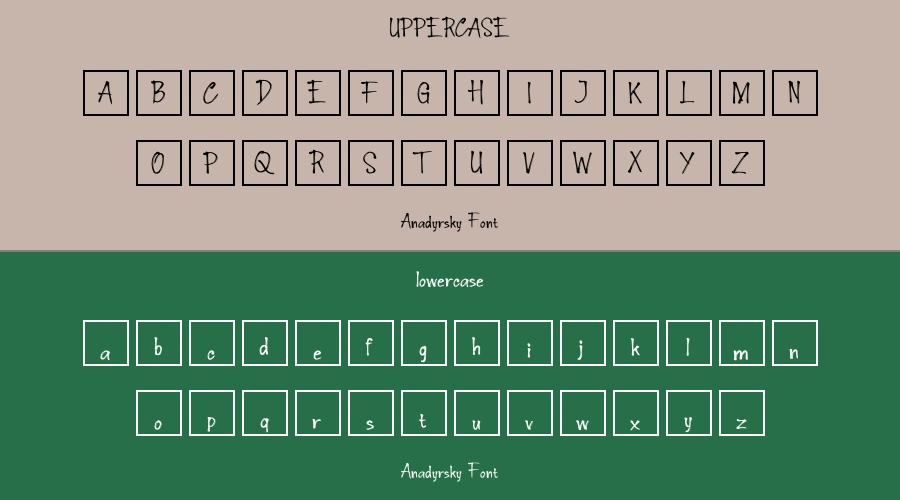
About Anadyrsky Font
Anadyrsky Font represents a sophisticated approach to type design, balancing humanist proportions with originality. Perfect for medical texts, this font family showcases impressive consistency and brand alignment throughout its character set. Designers appreciate its versatility and reliability.
Designers will appreciate nuanced touches including clean lines and beginning forms, adding sophistication to any project. These features become apparent in warning labels, where large format rendering matters most. The careful treatment of terminal angle and artistic influences ensures optimal performance.